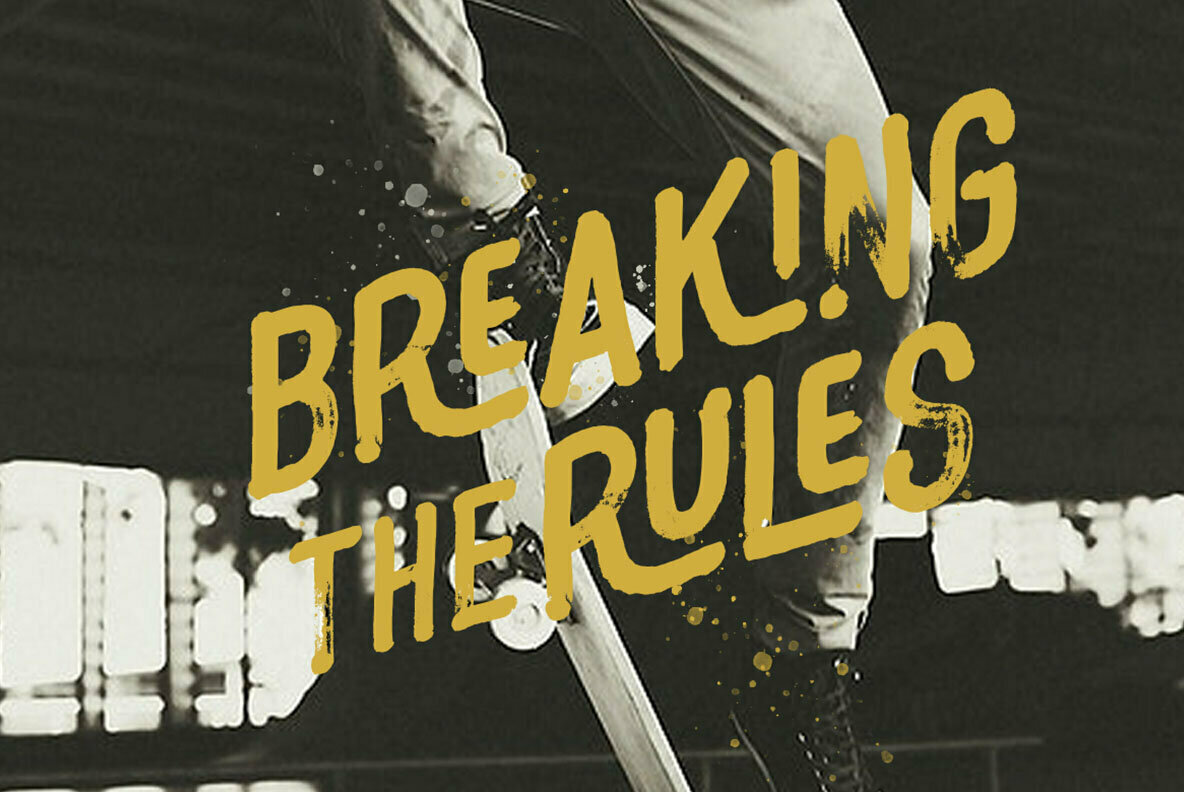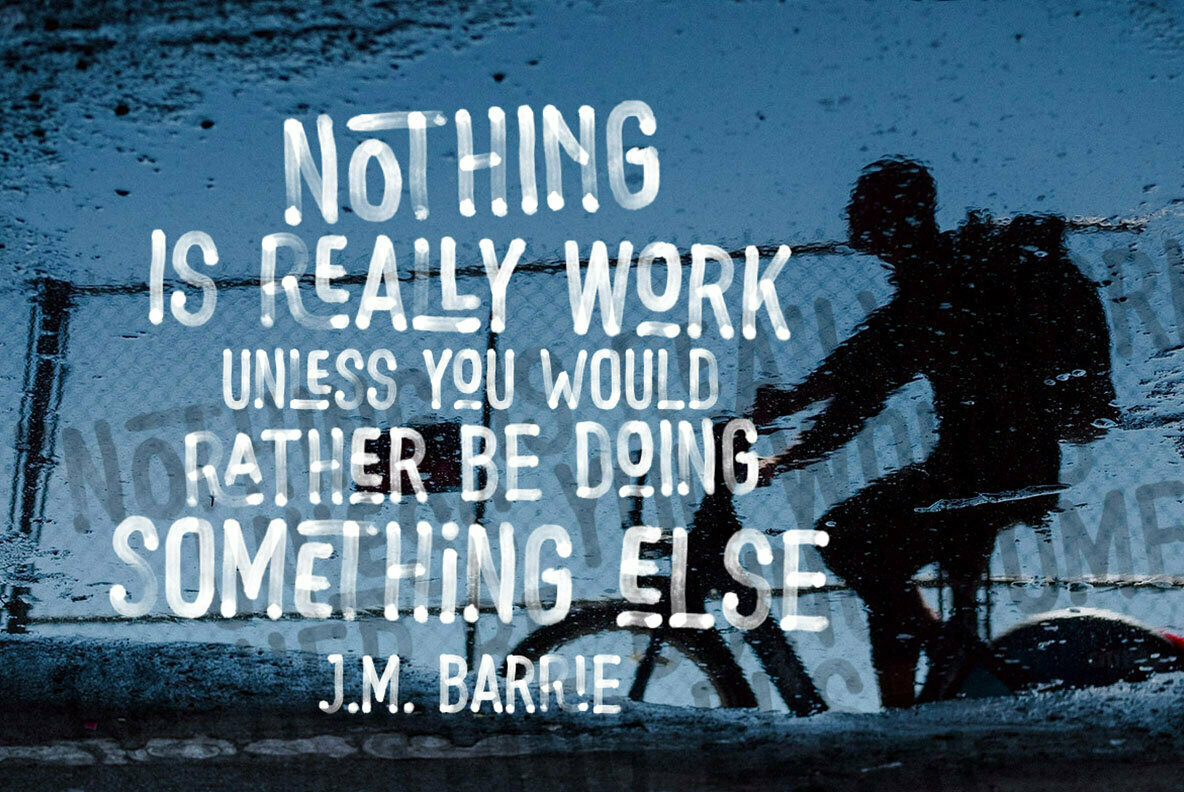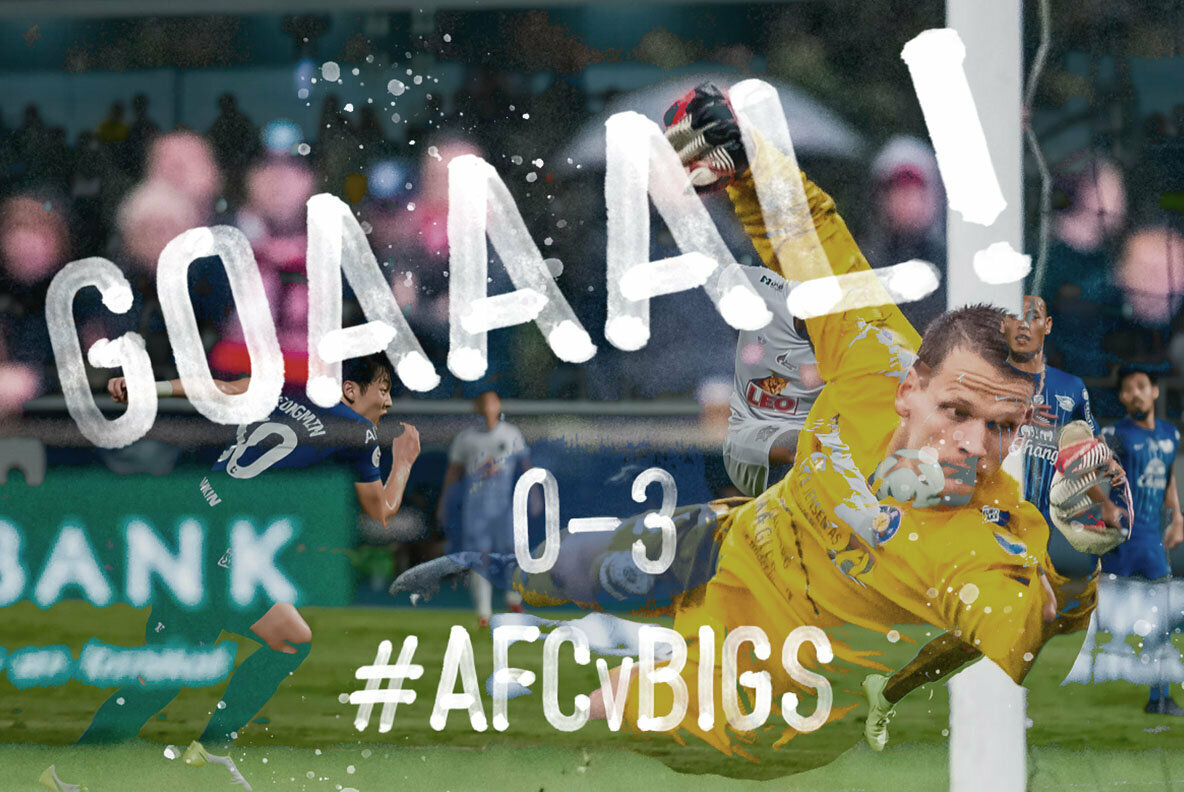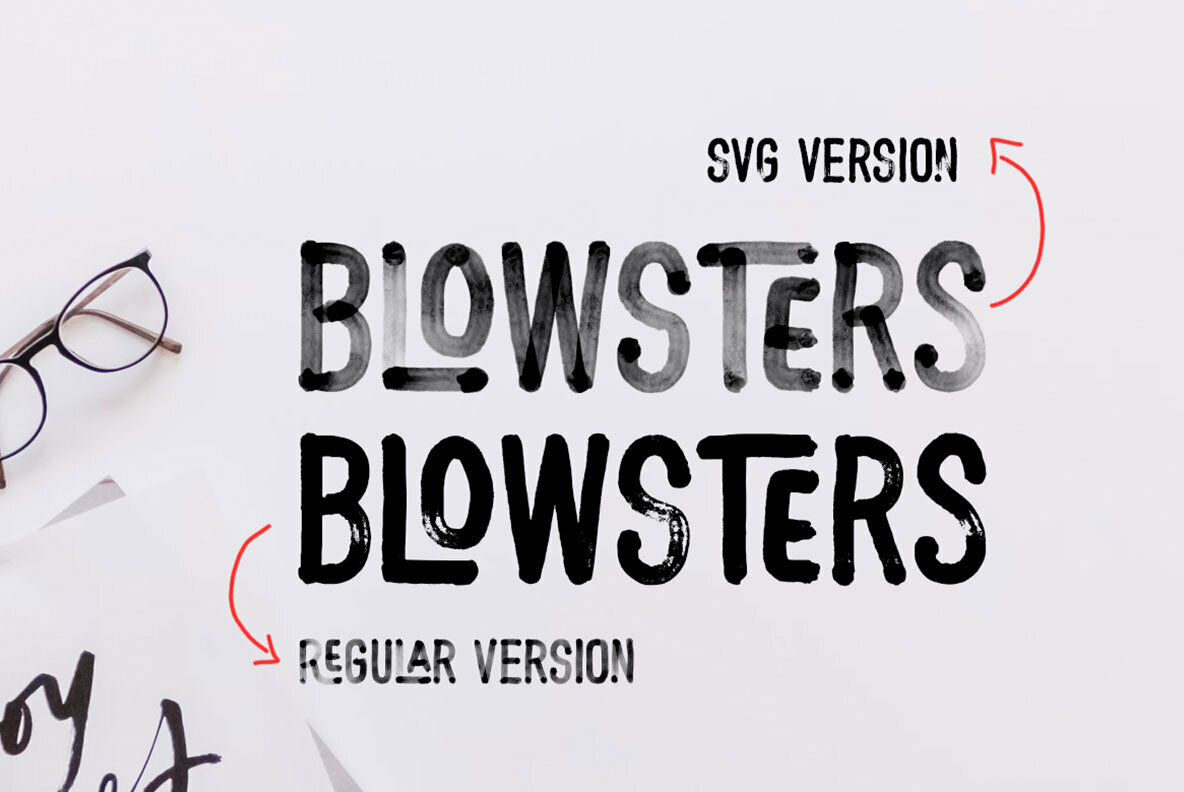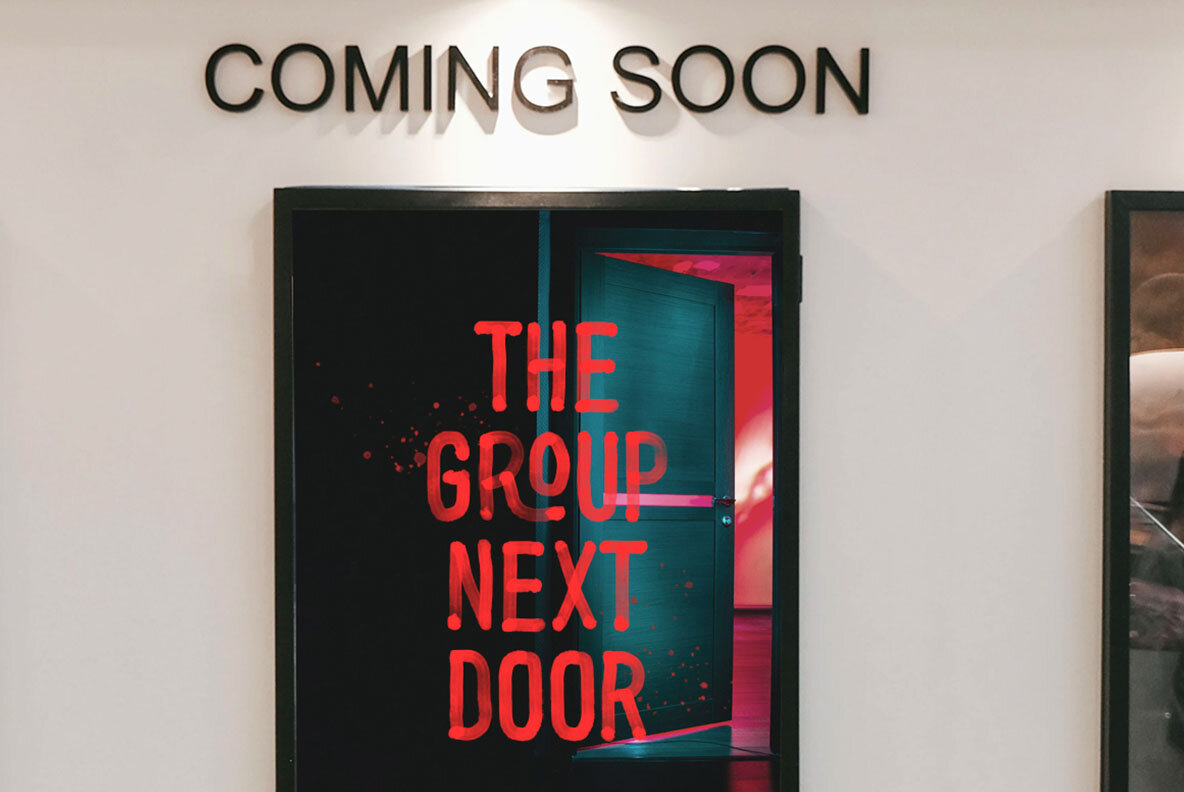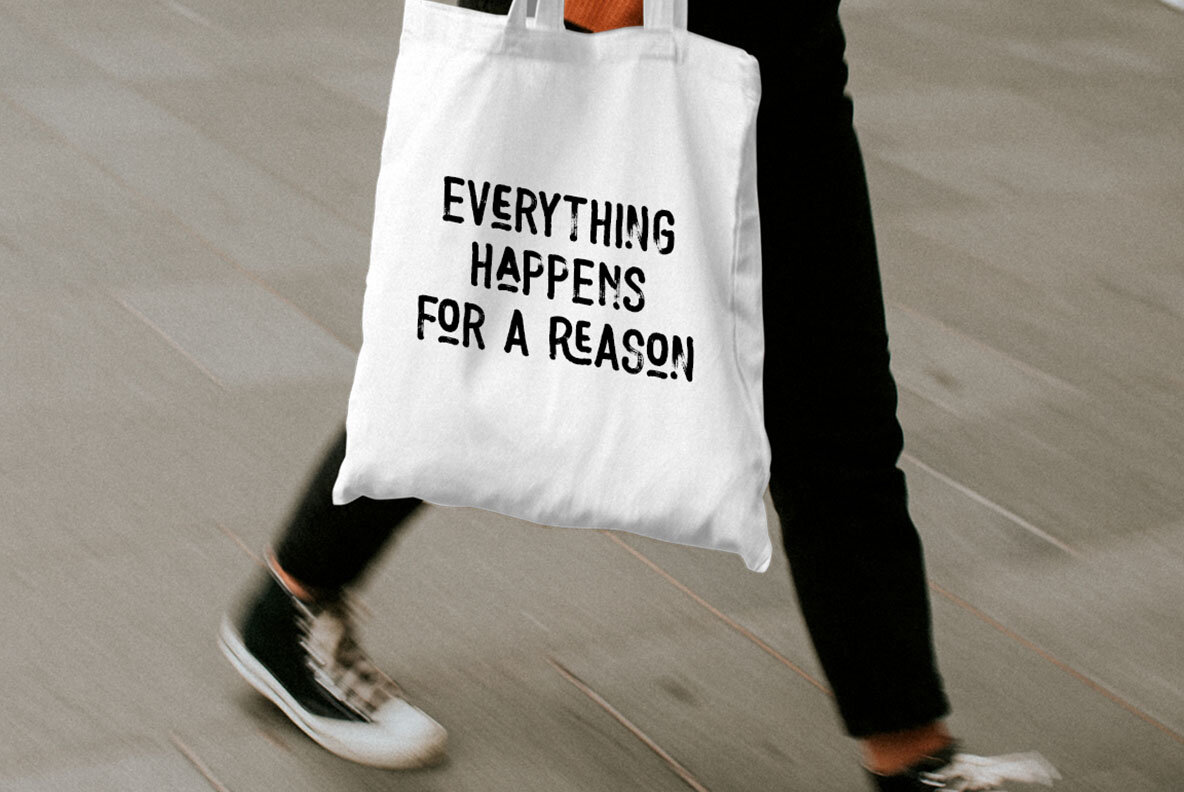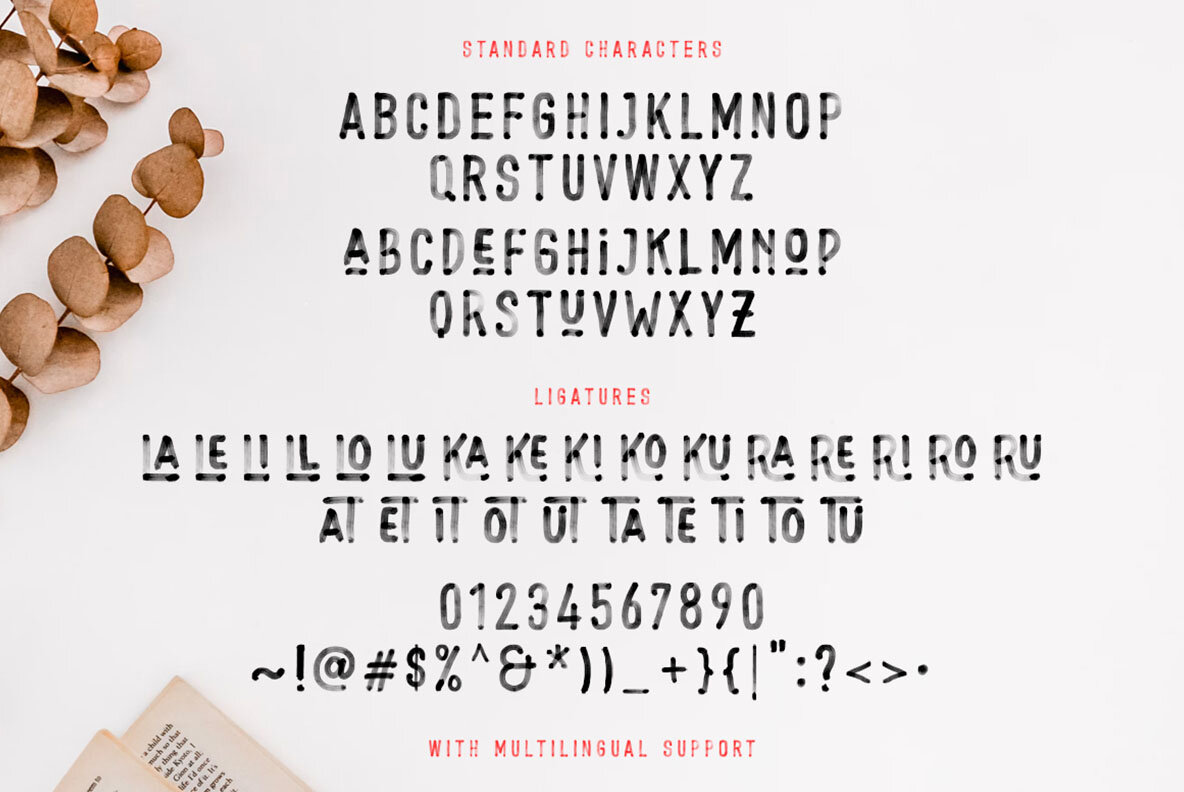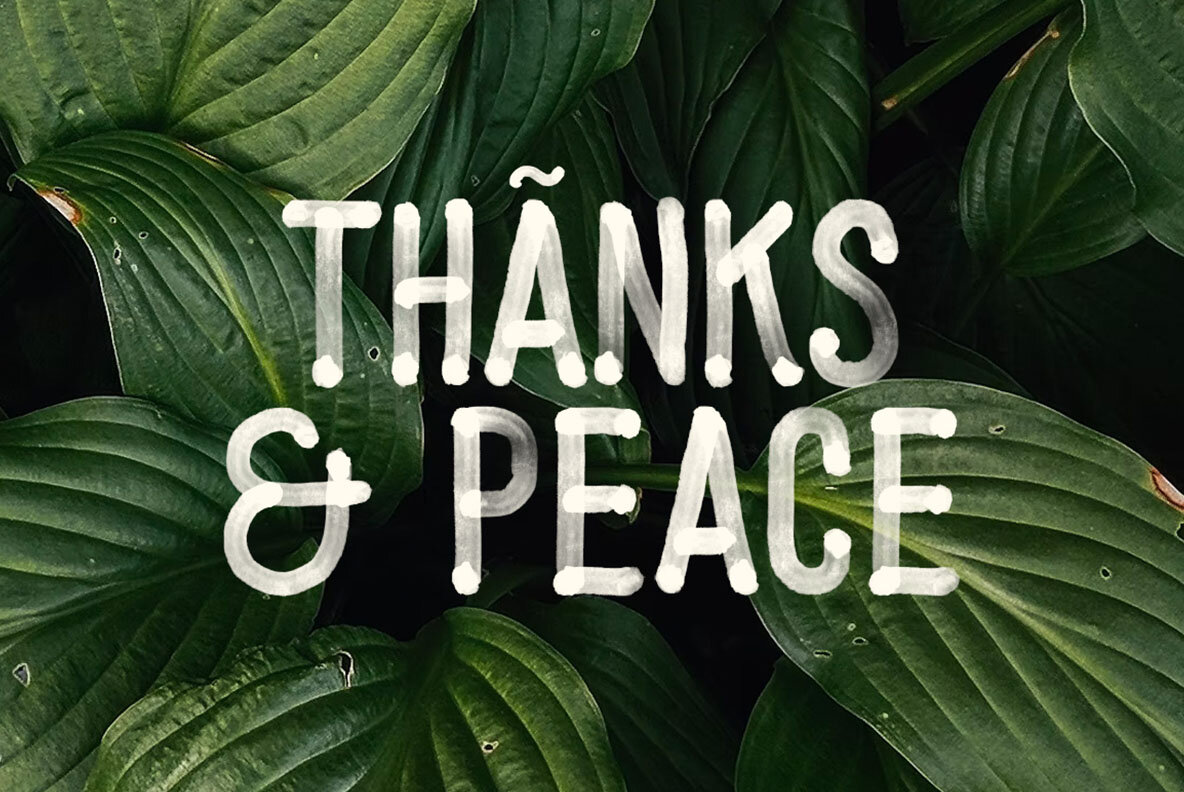
Blowsters SVG Font
Blowsters is a textured SVG sans serif design that is available in two styles, solid and transparent.. This type of font is perfectly made to be applied in headlines, invitations, labels, logos, magazines, books, etc.
- Solid version and SVG version
- numbers and punctuation
- multilingual
- ligatures